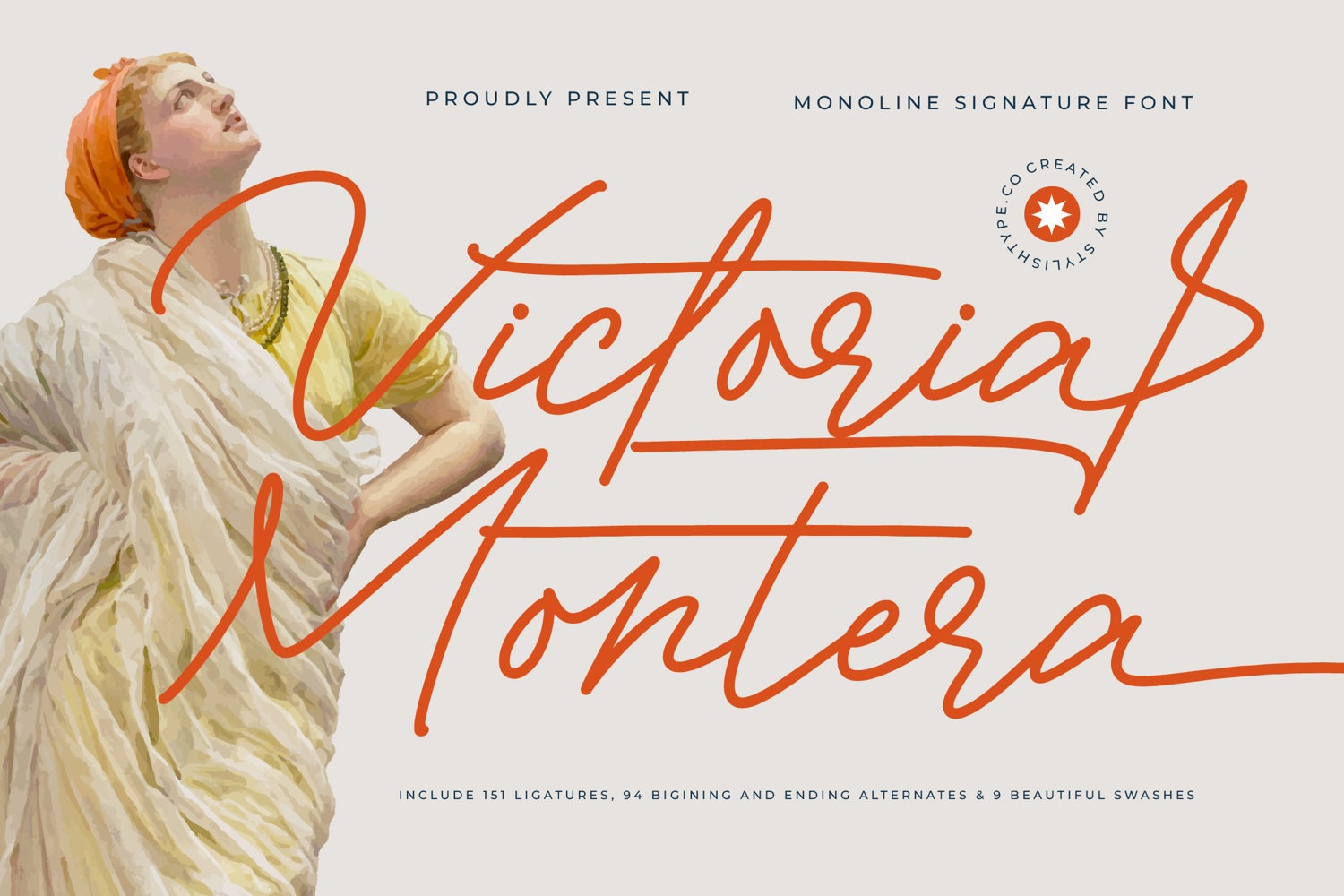
Victoria Montera - Monoline Signature Font
Victoria Montera Italic
Victoria Montera
Victoria Montera - Monoline Signature Font boasts an impressive collection of over 150 ligatures, 94 beginning and ending alternates, and nine expressive swashes, ensuring natural, hand-scripted variation across every word. This deep level of OpenType functionality allows designers to customize layout fluidity, eliminating repetitive strokes and guaranteeing that every application feels bespoke and highly polished.